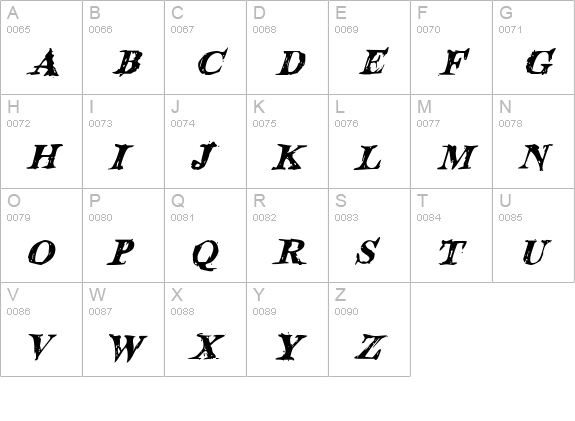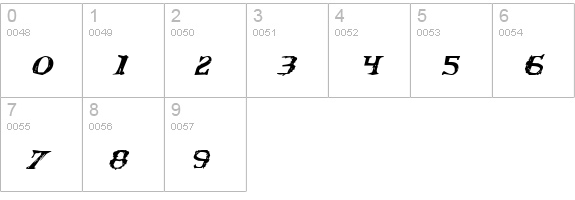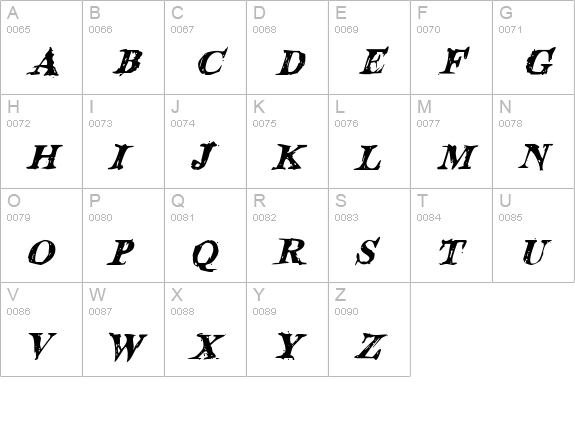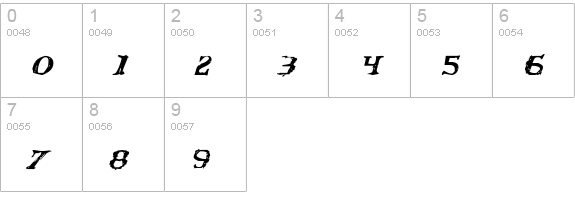
Blood Crow Italic Font Details
Blood Crow Italic is a distinctive, italic variant in the Blood typeface family \xE2\x80\x94 well suited to design and typography projects.
Blood Crow Italic font is a bold and striking typeface that exudes a sense of mystery and intrigue. With its sharp, angular serifs and distinctive curves, this font is perfect for adding a touch of drama to your projects. The italicized style gives it a dynamic and expressive quality that is sure to make a statement. This unique font is ideal for use in headlines, titles, and other design elements where you want to capture attention and create a memorable impact. Whether you're working on a gothic-themed project or looking to add some edge to your designs, Blood Crow Italic font is the perfect choice. Best of all, Blood Crow Italic font is completely free to download at FontsMarket.com. So go ahead and add this stunning font to your collection today and take your designs to the next level.